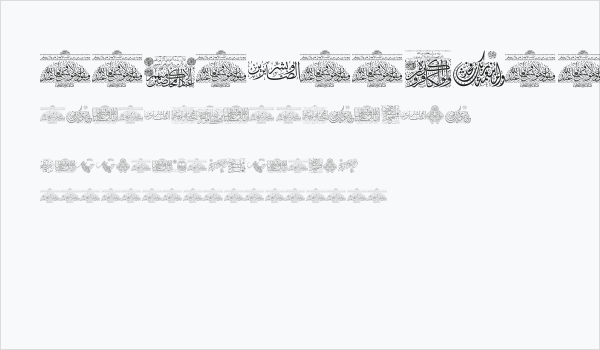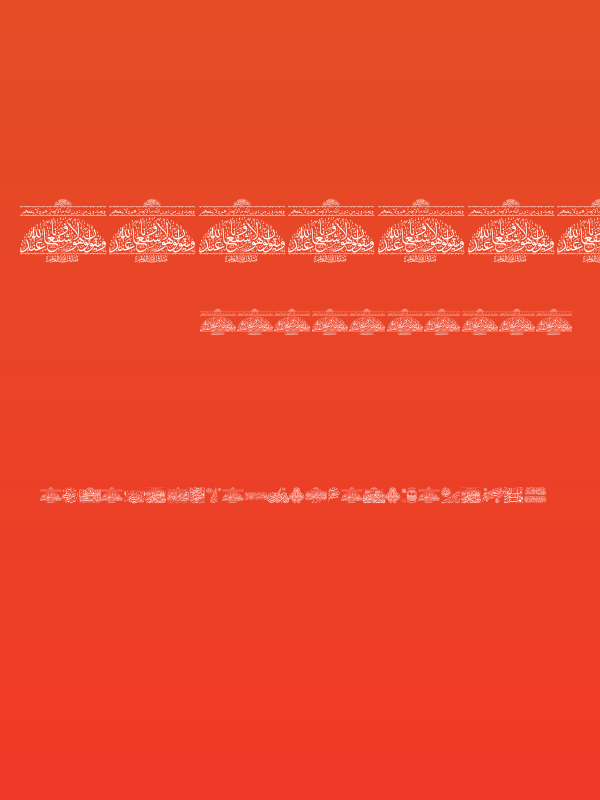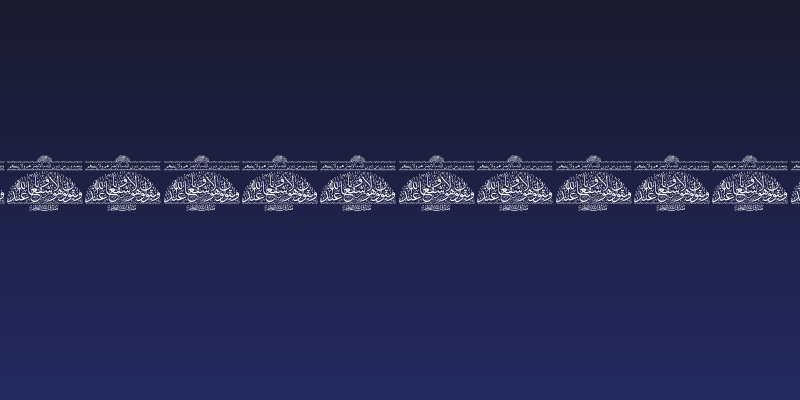
Aayat Quraan_041 Font
Aayat Quraan_041 Description
Highly ornate Arabic script with intricate decorative elements, featuring complex calligraphic flourishes and embellishments, commonly used in religious or ceremonial contexts.
| Overall Style | Decorative, Traditional, Religious |
| Use Case | Religious headings, Quranic verses, ornamental borders, certificates |
| Proposed Projects | Religious texts, ceremonial documents, Quranic verses, decorative borders, Islamic art, certificates. |